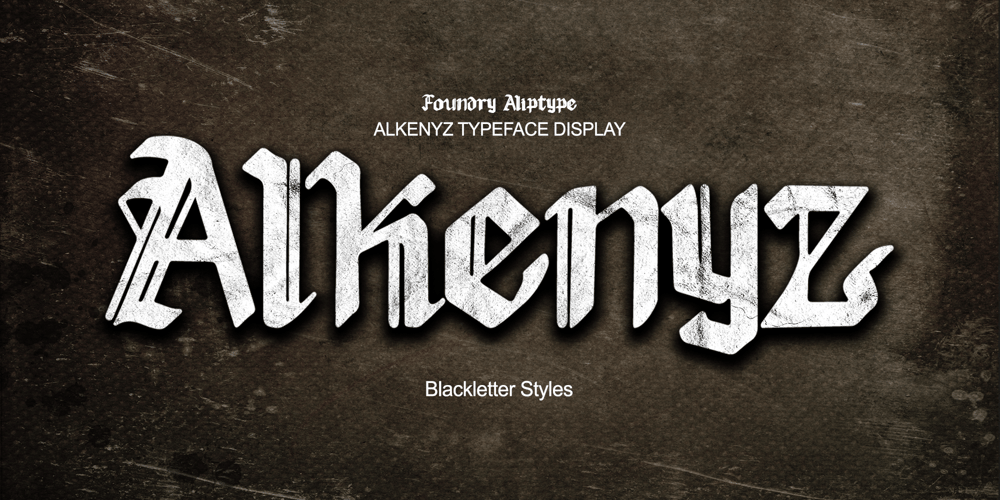
Alkenyz Font Family was designed by Muhamad Alip Fabio Mandaka and published by Aliptype. Alkenyz contains 2 styles and family package options. Intoducing Alkenyz, with a blackletter style, brings Alkenyz font more elegant, dense, and gothic.Complete by 2 Variation Family fonts with highly decorated caps. Alkenyz font sets come up with capital, lowercase letters, numerics, punctuation, and Multilingual Support.Alkenyz is perfect and suitable for logotype, Music Events, Tatto, Books title, Branding, Barbershops Lettering logos and many more can be discovered for stunning and gothic feels with this font.I really hope that you can work with this item and bring your design to the next level.Need any information or support about these items, please contact me :Thank youAliptype